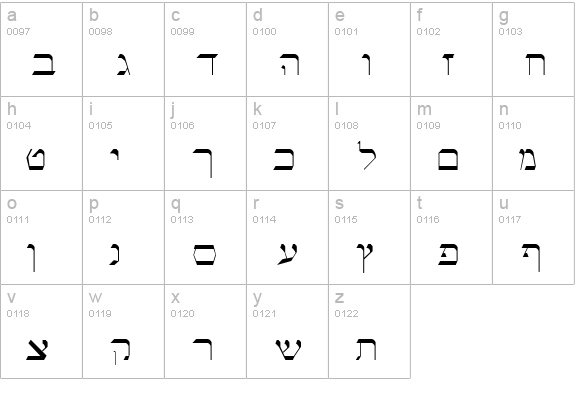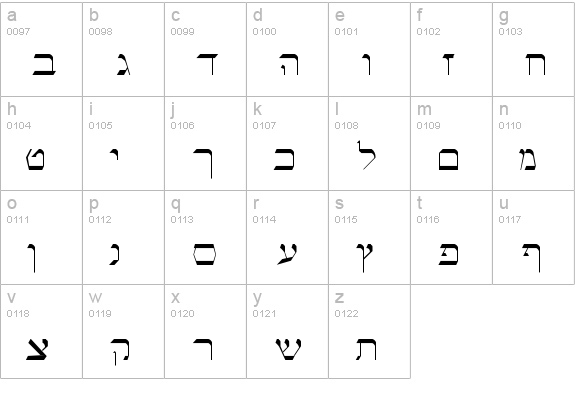
Roshem Font Details
Roshem font is a stunning display typeface that exudes elegance and sophistication. Its intricate details and unique design make it perfect for adding a touch of luxury to any project. The delicate serifs and graceful curves of Roshem font make it ideal for branding, packaging, and editorial design. What's even better is that Roshem font is available for free download at FontsMarket.com. You can easily access this beautiful typeface and elevate your designs with its timeless charm. Embrace the beauty of Roshem font and let your creativity shine with this exquisite addition to your font collection.